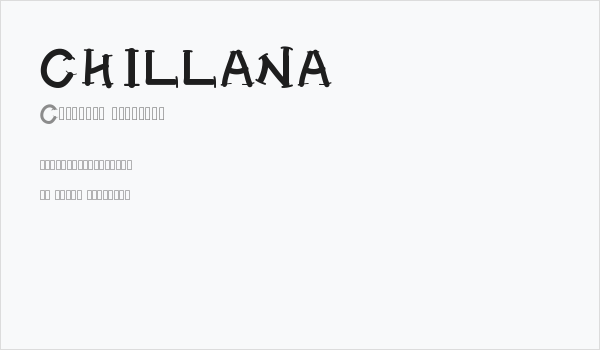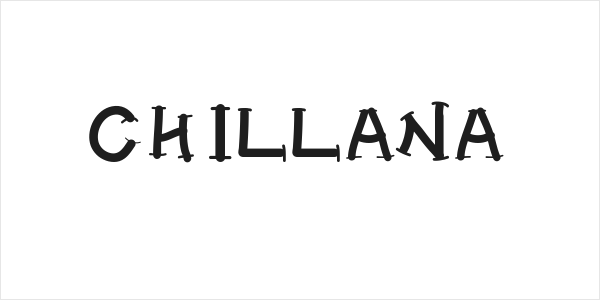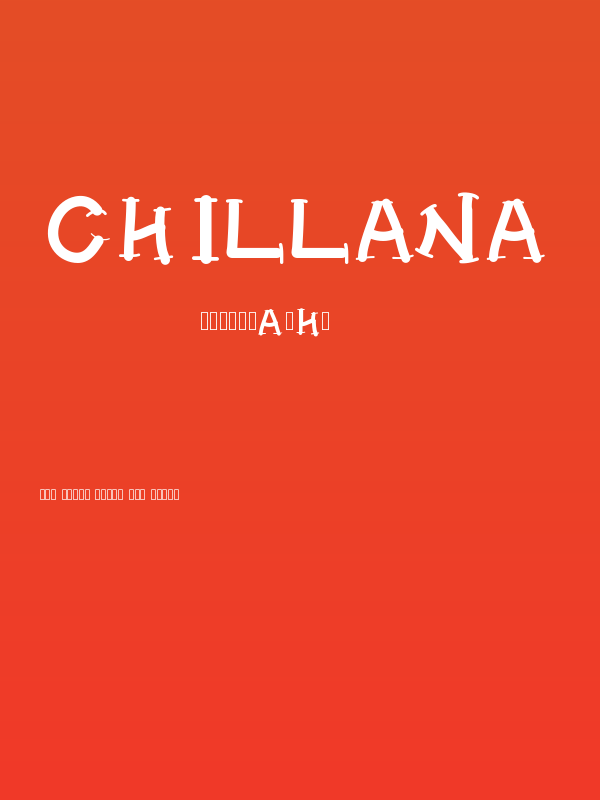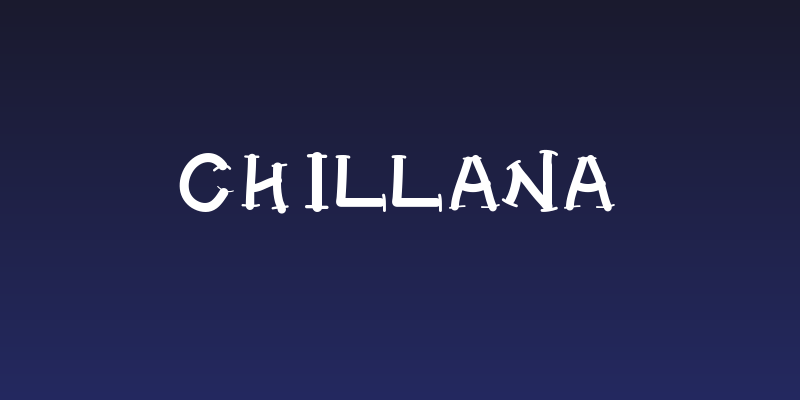
CHILLANA Font
CHILLANA Description
This font features a bold and dramatic style with thick, prominent strokes and unique serifs that give it a distinctive, almost theatrical appearance. The characters are well-defined, with a strong presence that commands attention. The uppercase letters are particularly striking, with a slight curvature that adds a touch of elegance. The lowercase letters maintain the boldness of the uppercase, ensuring consistency throughout the typeface. The numbers and special characters are designed to match the overall bold and expressive style, making this font suitable for impactful designs.
| Proposed Projects | Ideal for posters, headlines, branding, and any project requiring a bold, attention-grabbing typeface. |